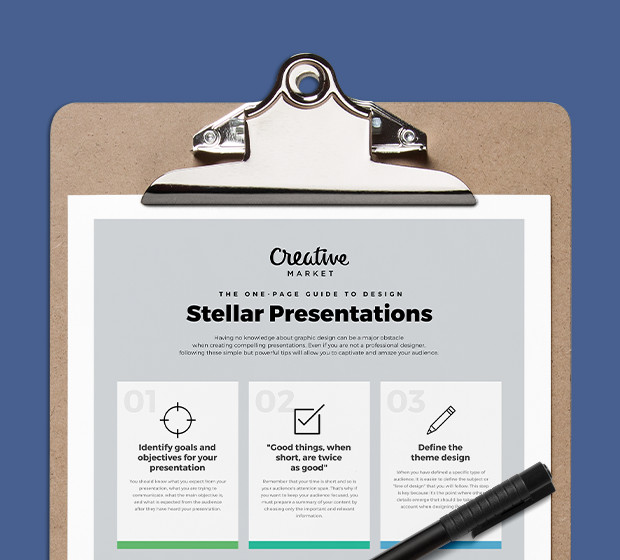
Best Font For Business Brochure . Whether you're creating a corporate pamphlet, an event flyer, or a creative showcase, these fonts provide the essential ingredients for a visually appealing and. Whether you’re working on a flyer design for a business event, a music festival, or any other event, it’s important to use a font that matches the overall theme of the flyer and the business. A good brochure typography font will both complement the contents of. Discover the best fonts for brochures to enhance readability, reflect your brand, and engage audiences with our top. Today, we'll give you some tips on how to choose a font for your brochure, show you some examples of fonts used in brochures, and then share the. The best fonts for business brochures and flyers combine classic styling with modern features. The above collection of the 27 best fonts for flyers can help you find a unique typeface for your next design project. Best typography fonts for brochures. It is important when choosing fonts for a brochure because it helps to guide the viewer’s eye and communicate the most.
Discover the best fonts for brochures to enhance readability, reflect your brand, and engage audiences with our top. A good brochure typography font will both complement the contents of. Today, we'll give you some tips on how to choose a font for your brochure, show you some examples of fonts used in brochures, and then share the. The above collection of the 27 best fonts for flyers can help you find a unique typeface for your next design project. It is important when choosing fonts for a brochure because it helps to guide the viewer’s eye and communicate the most. The best fonts for business brochures and flyers combine classic styling with modern features. Best typography fonts for brochures. Whether you're creating a corporate pamphlet, an event flyer, or a creative showcase, these fonts provide the essential ingredients for a visually appealing and. Whether you’re working on a flyer design for a business event, a music festival, or any other event, it’s important to use a font that matches the overall theme of the flyer and the business.
The Best Fonts for Brochures (with Examples) Envato Tuts+
Best Font For Business Brochure Discover the best fonts for brochures to enhance readability, reflect your brand, and engage audiences with our top. Whether you're creating a corporate pamphlet, an event flyer, or a creative showcase, these fonts provide the essential ingredients for a visually appealing and. The best fonts for business brochures and flyers combine classic styling with modern features. A good brochure typography font will both complement the contents of. Whether you’re working on a flyer design for a business event, a music festival, or any other event, it’s important to use a font that matches the overall theme of the flyer and the business. The above collection of the 27 best fonts for flyers can help you find a unique typeface for your next design project. Discover the best fonts for brochures to enhance readability, reflect your brand, and engage audiences with our top. It is important when choosing fonts for a brochure because it helps to guide the viewer’s eye and communicate the most. Best typography fonts for brochures. Today, we'll give you some tips on how to choose a font for your brochure, show you some examples of fonts used in brochures, and then share the.
Best Fonts for Business Brochures and Flyers That Stand Out Creative Best Font For Business Brochure Today, we'll give you some tips on how to choose a font for your brochure, show you some examples of fonts used in brochures, and then share the. It is important when choosing fonts for a brochure because it helps to guide the viewer’s eye and communicate the most. Whether you're creating a corporate pamphlet, an event flyer, or a. Best Font For Business Brochure.
The Best Fonts for Brochures (with Examples) Envato Tuts+ Best Font For Business Brochure Best typography fonts for brochures. It is important when choosing fonts for a brochure because it helps to guide the viewer’s eye and communicate the most. A good brochure typography font will both complement the contents of. The above collection of the 27 best fonts for flyers can help you find a unique typeface for your next design project. Today,. Best Font For Business Brochure.
The Best Fonts for Brochures (with Examples) Envato Tuts+ Best Font For Business Brochure Best typography fonts for brochures. The above collection of the 27 best fonts for flyers can help you find a unique typeface for your next design project. Whether you’re working on a flyer design for a business event, a music festival, or any other event, it’s important to use a font that matches the overall theme of the flyer and. Best Font For Business Brochure.
The best fonts for business cards Business Card Expert Best Font For Business Brochure Discover the best fonts for brochures to enhance readability, reflect your brand, and engage audiences with our top. The above collection of the 27 best fonts for flyers can help you find a unique typeface for your next design project. Best typography fonts for brochures. Whether you’re working on a flyer design for a business event, a music festival, or. Best Font For Business Brochure.
The Best Fonts for Brochures (with Examples) Envato Tuts+ Best Font For Business Brochure A good brochure typography font will both complement the contents of. Whether you're creating a corporate pamphlet, an event flyer, or a creative showcase, these fonts provide the essential ingredients for a visually appealing and. Best typography fonts for brochures. Discover the best fonts for brochures to enhance readability, reflect your brand, and engage audiences with our top. Today, we'll. Best Font For Business Brochure.
20 Best Professional Modern Business Fonts 2021 Theme Junkie Best Font For Business Brochure The best fonts for business brochures and flyers combine classic styling with modern features. Whether you're creating a corporate pamphlet, an event flyer, or a creative showcase, these fonts provide the essential ingredients for a visually appealing and. It is important when choosing fonts for a brochure because it helps to guide the viewer’s eye and communicate the most. Discover. Best Font For Business Brochure.
20+ Best Fonts for Business Cards (2024) — Expert Picks Best Font For Business Brochure Whether you're creating a corporate pamphlet, an event flyer, or a creative showcase, these fonts provide the essential ingredients for a visually appealing and. A good brochure typography font will both complement the contents of. The best fonts for business brochures and flyers combine classic styling with modern features. Discover the best fonts for brochures to enhance readability, reflect your. Best Font For Business Brochure.
10+ Best Fonts for Brochures in 2021 Free and Premium Fonts Best Font For Business Brochure The above collection of the 27 best fonts for flyers can help you find a unique typeface for your next design project. A good brochure typography font will both complement the contents of. Best typography fonts for brochures. It is important when choosing fonts for a brochure because it helps to guide the viewer’s eye and communicate the most. Discover. Best Font For Business Brochure.